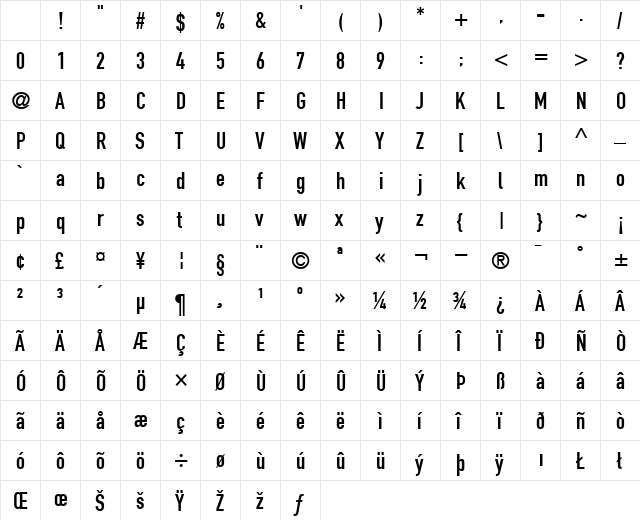
Complete DINEngschrift Regular glyph index. Displaying only characters natively supported by DINEngschrift Regular font.
DINEngschrift is a composed and adaptable typeface that performs quietly and consistently across a wide range of design contexts.